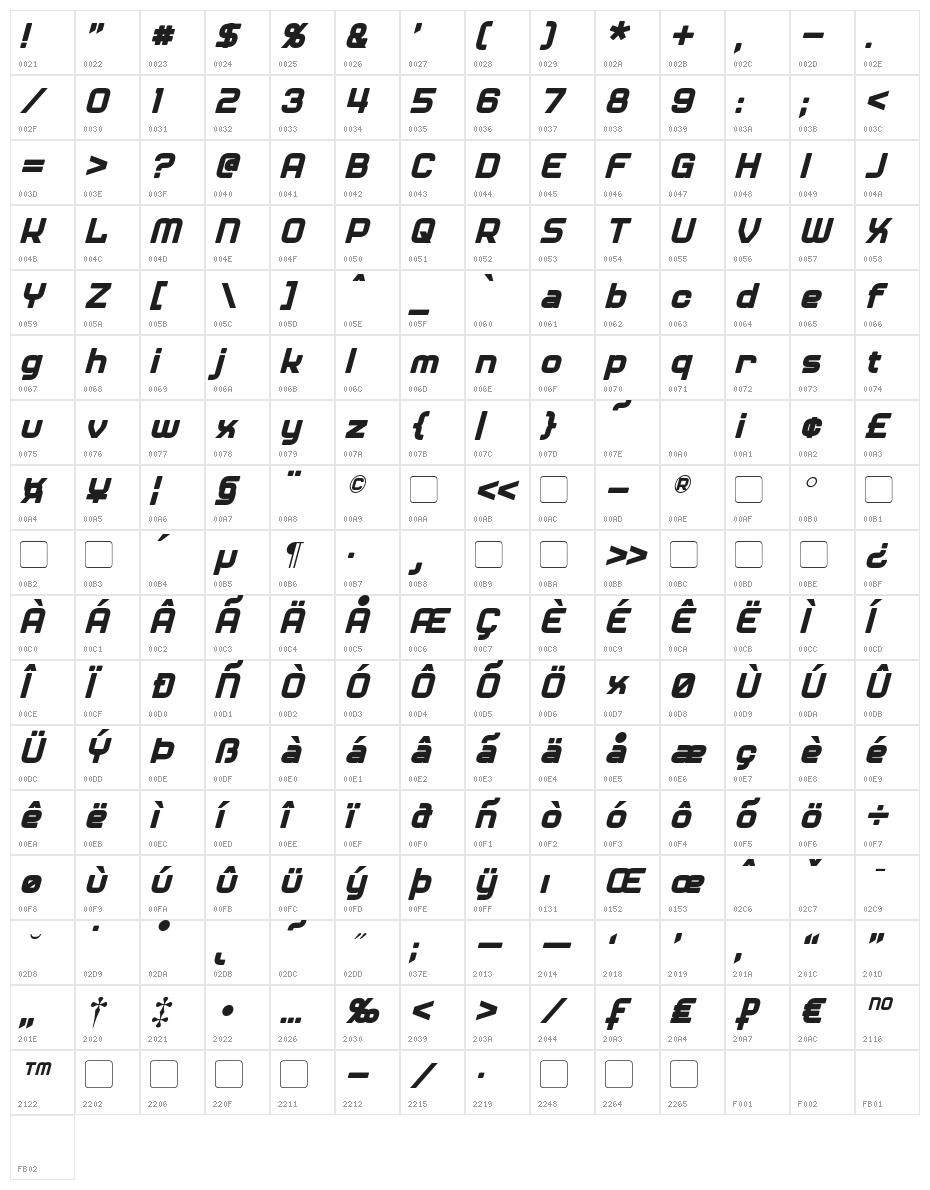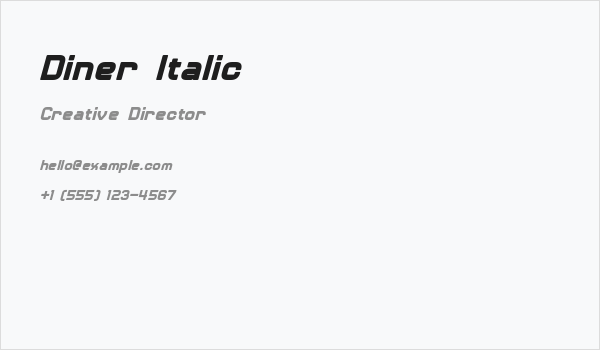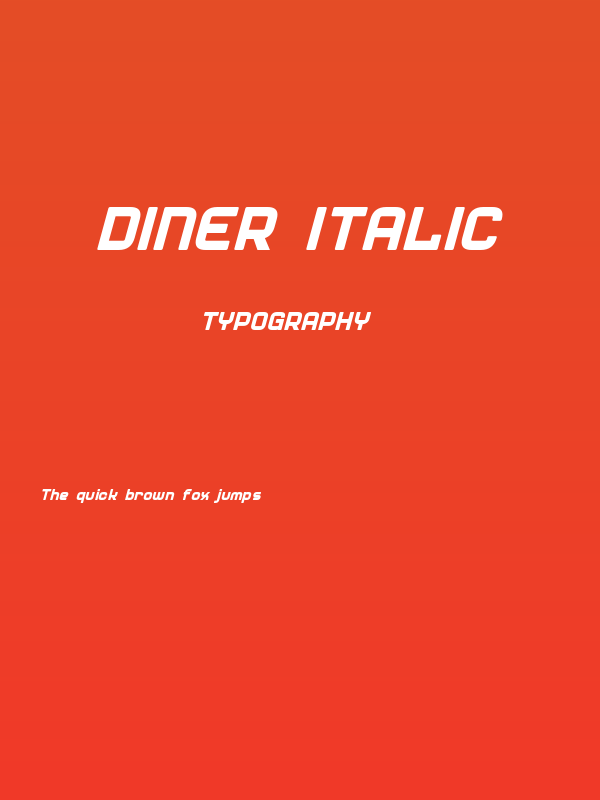
Diner Italic Font
Diner Italic Description
This font features a bold and dynamic style with a distinct italic slant, giving it a sense of motion and energy. The characters are well-defined with a geometric structure, offering a modern and streamlined appearance. The uppercase and lowercase letters maintain a consistent design, with rounded edges and a uniform stroke width that enhances readability. The numerals and special characters complement the overall aesthetic, making it versatile for various applications. Its boldness and italic nature make it stand out, suitable for creating impactful headlines or branding materials.
| Proposed Projects | Ideal for branding, advertising, headlines, and any design requiring a modern, energetic touch. |